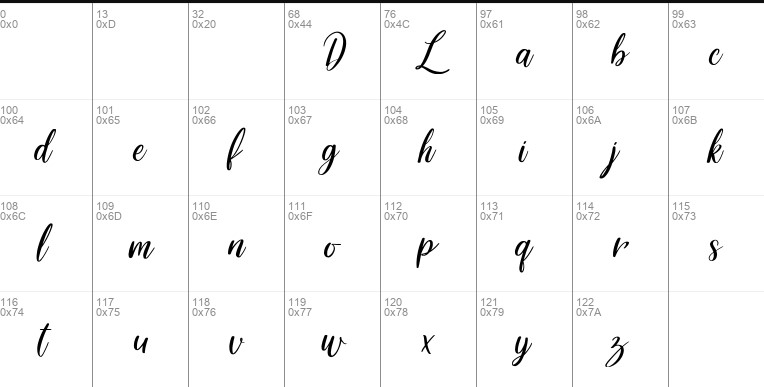
Delight Lettering Font
Delight Lettering Font falls into the category of the calligraphic typeface, This typeface is mostly utilized in websites and it is similar to the lettering fonts.
This typeface is much like cheddar jack font that has been given to have its identity in the crucial ranks. The whole set consists of OpenType.